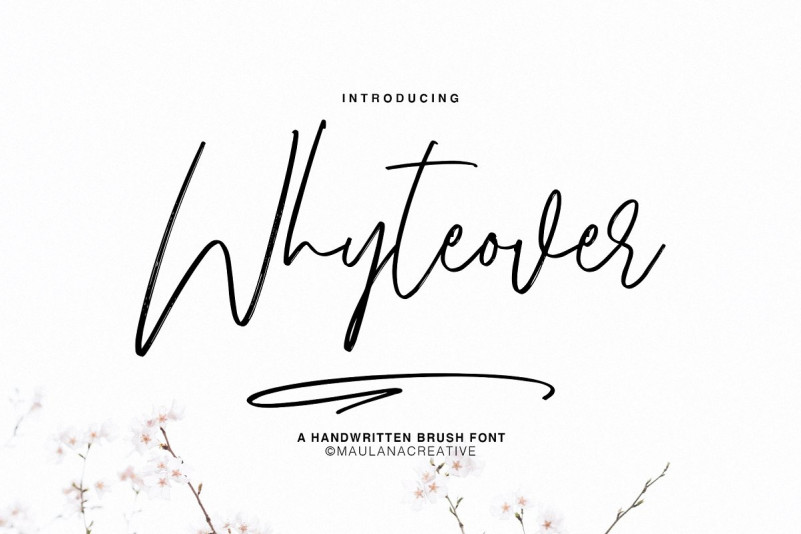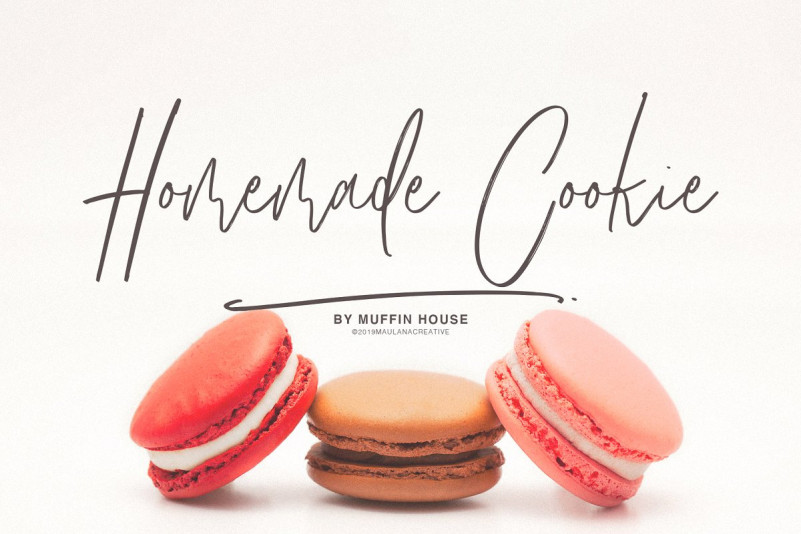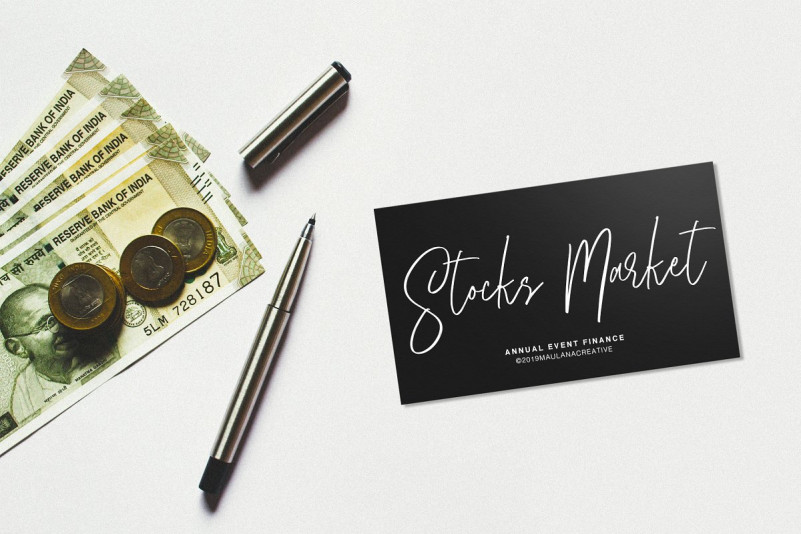
Whyteover Font
Give your designs an authentic handcrafted feel. “Whyteover” is perfectly suited to signature, stationery, logo, typography quotes, magazine or book cover, website header, clothing, branding, packaging design and more. Included Swash & Ligatures.